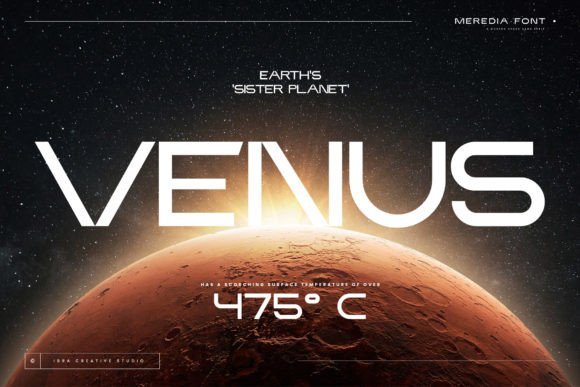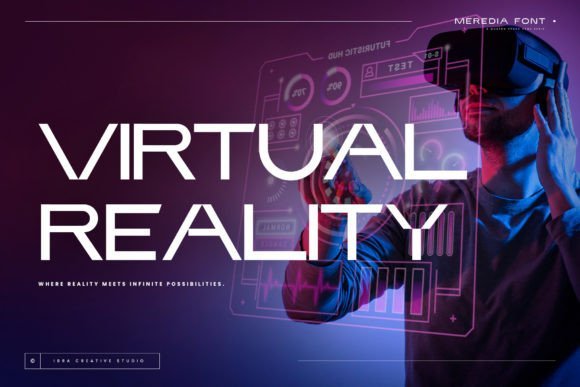
Meredia Font
Meredia Font is a striking modern space sans serif font that captures the essence of contemporary design. With its clean lines, balanced proportions, and sleek geometry, it stands out as a refined choice for those seeking simplicity and elegance. Whether used in logos, websites, or mobile apps, this font delivers a sharp, professional look that fits seamlessly into modern design trends.
One of the key strengths of Meredia Font lies in its versatility. Its minimalist structure allows it to adapt to both bold headlines and subtle body text. Designers can rely on its clarity and readability, whether for user interfaces, branding, or editorial layouts. The font’s geometric construction adds a futuristic touch without sacrificing function or aesthetic harmony.
Meredia Font’s sophisticated yet approachable character makes it suitable for a wide range of creative projects. From tech startups to fashion magazines, it enhances visual appeal while maintaining a clean, modern tone. It’s a typeface that speaks the language of innovation and simplicity.